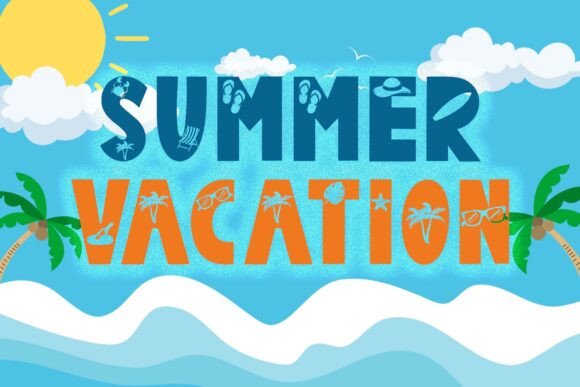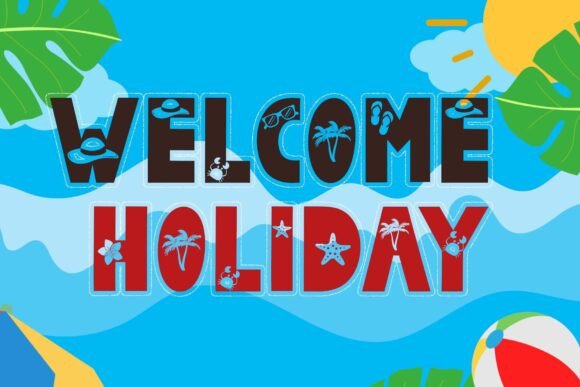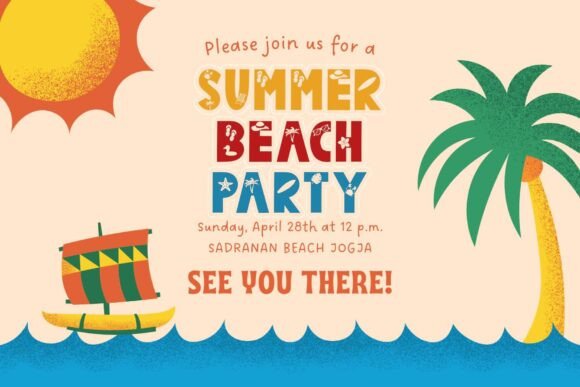
Dainty Summer Font
About the Dainty Summer Font
Get ready to be inspired by Dainty Summer Font, a fresh and dynamic typeface for modern creators. “Dainty Summer” is a unique and cute display font. This font is varied with summer mothers day,related shapes. Equipped with uppercase, lowercase, numbers, punctuation, and multilingual support. Perfect for use in summer, spring, vacation, holiday, camping and other.
“Dainty Summer” excels as a display font for headlines, short slogans, and branding elements where a playful, lighthearted feel is desired. It’s ideal for projects related to summer themes, children’s products, or brands emphasizing fun and approachability. Avoid using it for large blocks of body text or UI elements; its decorative nature compromises readability in extended passages.
This font’s personality is undeniably cheerful and whimsical. To balance this, consider pairing it with a clean sans-serif like Open Sans for body copy or a more structured serif like Merriweather for supporting text. For a contrasting yet harmonious effect, a simple geometric sans-serif such as Lato could also work well.
Alternatively, a delicate script font could add a touch of elegance while retaining the overall lighthearted mood. The key is to select a contrasting typeface that provides visual stability and enhances readability where “Dainty Summer” is used for display purposes.
Dainty Summer Font Usage Examples
Dainty Summer Font Example